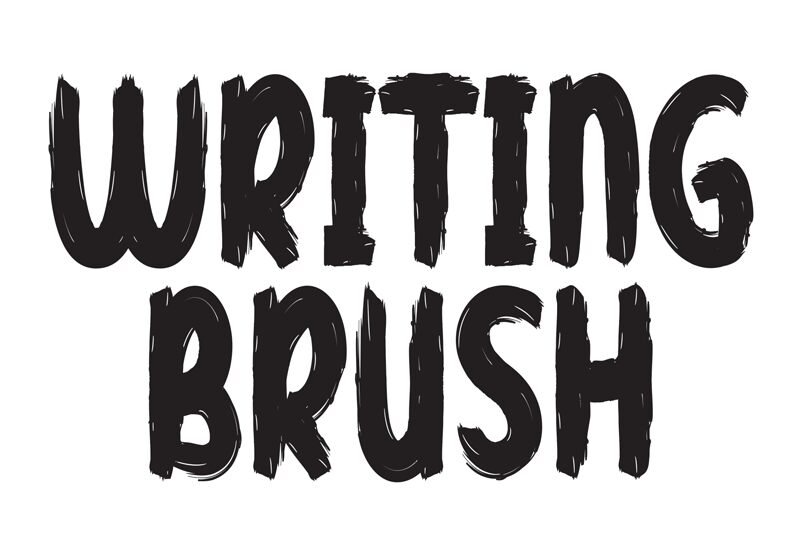
Writing Brush
Writing Brush font is a bold and condensed brush typeface by Andi Moz. It's raw, textured, organic, expressive, and artistic. This free handwritten font showcases a natural tone that seems to have been created with several brushes having different textures. A combination of lighter fills and thicker borders is noticeable, along with obvious strokes throughout the letters.